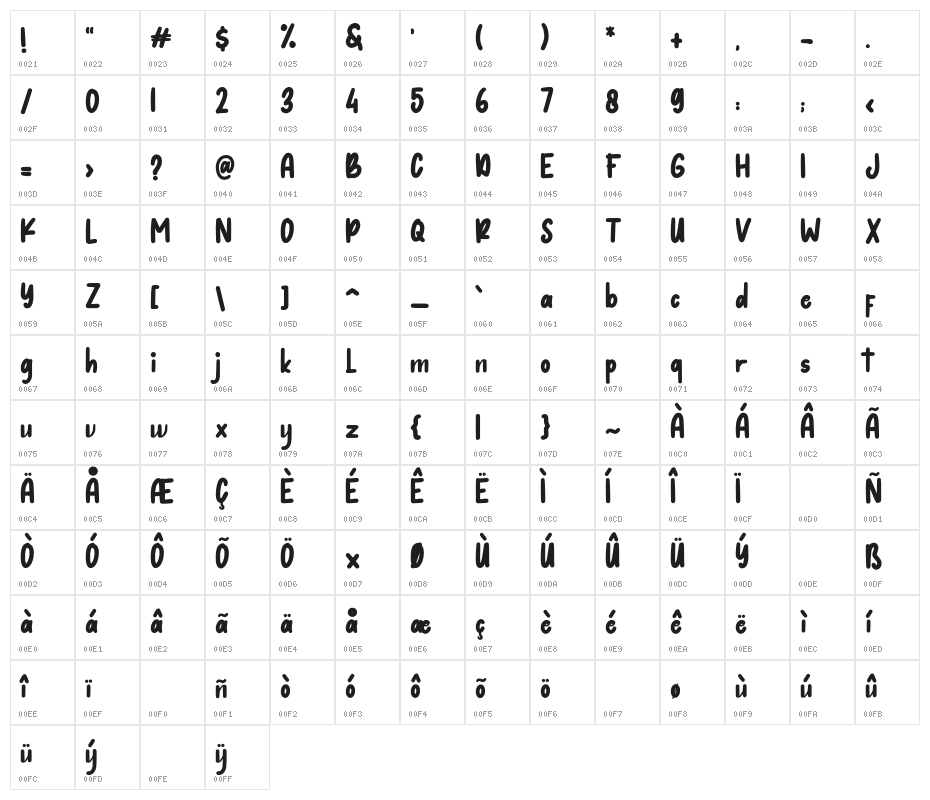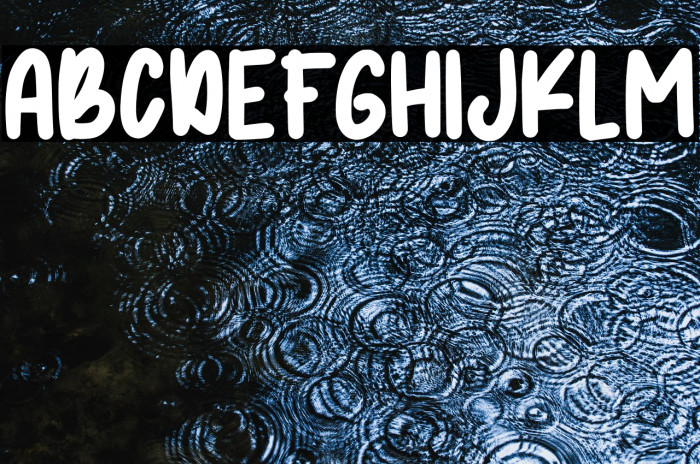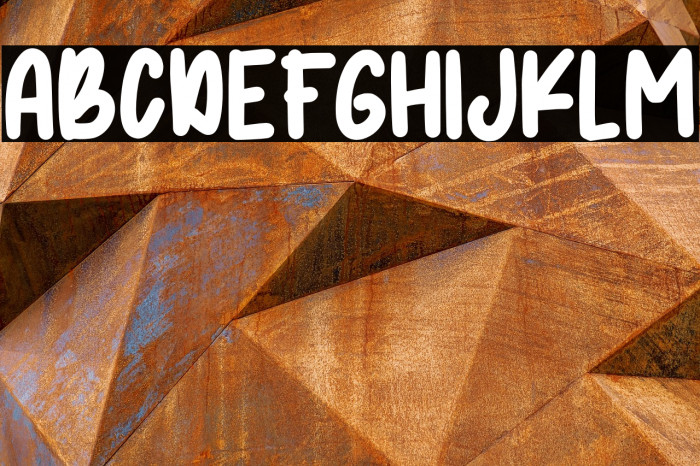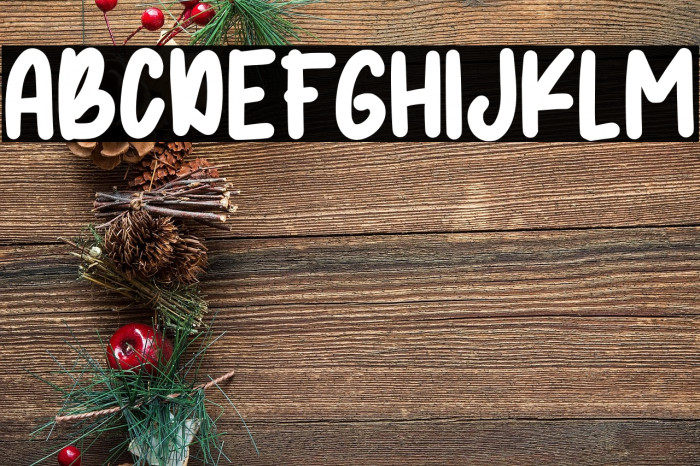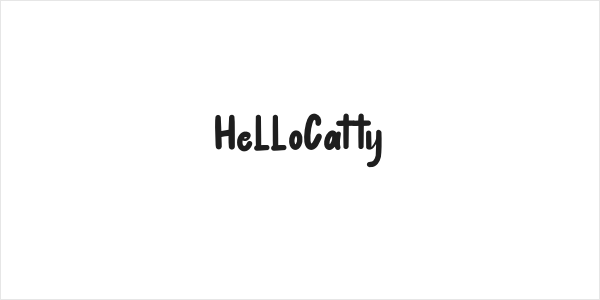
HelloCatty Font
HelloCatty Description
This playful and bold font features thick, rounded strokes with a handwritten style, giving it a friendly and approachable appearance. The characters are slightly irregular, adding a whimsical touch that enhances its charm. The uppercase and lowercase letters maintain a consistent weight, while the numbers and special characters follow the same playful design. This font's boldness ensures it stands out, making it ideal for eye-catching designs. The spacing between characters is tight, contributing to its cohesive look.
Overall StylePlayful
Use CaseHeadlines, Logos
Proposed ProjectsIdeal for children's books, playful branding, greeting cards, and casual invitations.